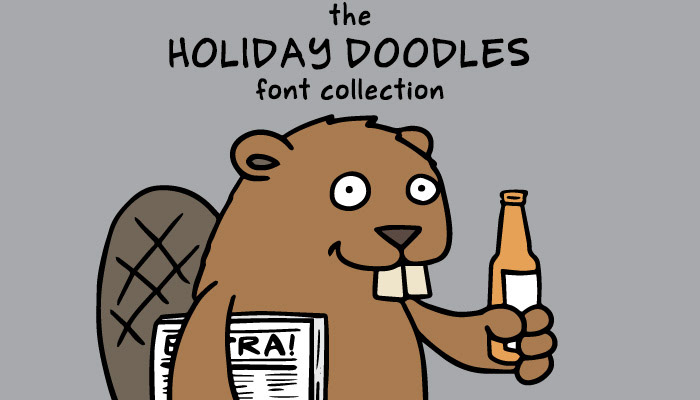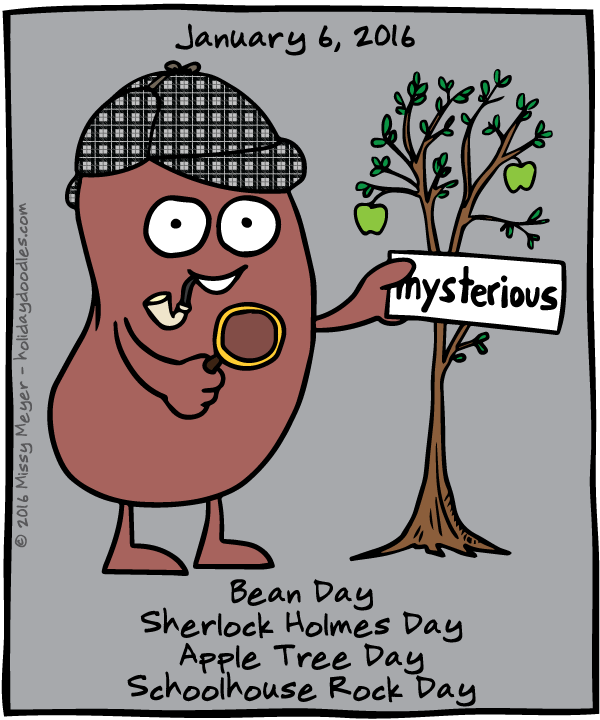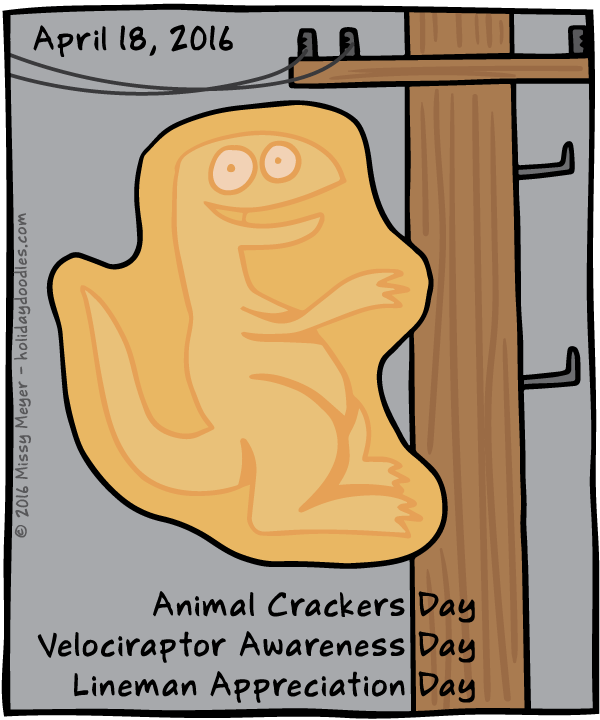
So as you may or may not know, I drew a web comic called Holiday Doodles. (You can see the archives at the Holiday Doodles site.) And the fonts used on that comic are ones I’ve made, of my own handwriting.
The original font I used when I started putting the doodles online back in 2013 was one I’d created the year before, back when the great YourFonts.com site would let you create fonts for free on National Handwriting Day (January 23, and it’s telling about how long I’ve been dealing with weird holidays that I didn’t even need to look that date up.)
So, the original is … kind of jacked up. Because it was auto-created by a website for free. But it also has a real charming roughness to it.
A Holiday Doodle with the original rough font.
I recently decided to clean that old font up, since I now have actual font editing software. And when I opened it up, it was horrifying. Overlapping points! Ten points along a straight line! A real mess. I took a pass at it, refreshed the kerning, and gave it a shot in the comics.
A Doodle with the first refinement of the font.
I liked it! It’s less wide, which means I can get those longer holidays in there on one line. (Some of them are crazily long, like Grass Is Always Browner on the Other Side of the Fence Day or Move Hollywood and Broadway to Lebanon, Pennsylvania Day.) But it still retains that handwritten feeling, and is clearly (to my eye) my own writing.
Of course, I couldn’t leave well enough alone, and decided after using it for a few weeks to refine it even further. I eliminated a ton of points on all of the curves, and made things a lot more smooth. But when I tried it with the comics, I was disappointed. it fills my heart with sadness to say:
It was too smooth. Too sleek. Too tidy. And it looked a little Comic Sans-ish.
So for now, I’m sticking with the middle format in my comics. But I figured I’d put the whole family out here for people to use, and you can decide for yourself which of the three you like the best. All three have some extended characters, and all three have had a minimum level of kerning done to them. (Enough for the comics, at any rate.)